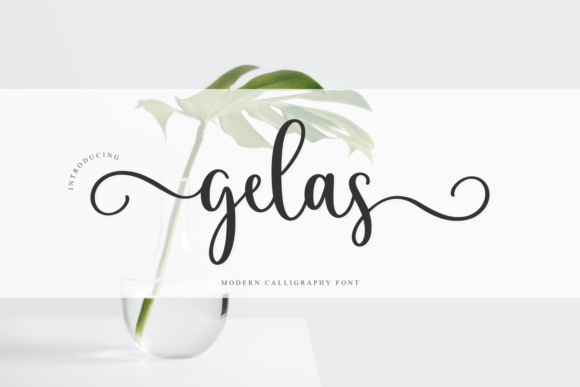
Enter the world of Gelas Font, a captivating script font family ready to transform your designs into works of art. Unleash the beauty of handwritten elegance with its intricate curly swash lines that add a touch of magic and charm to every letter. Whether you're crafting logos, designing labels, building brands, or creating invitations, Gelas Font is your perfect companion.
Experience the versatility of Gelas Font as it seamlessly adapts to your creative vision. Use it to enhance your websites, add a personal touch to your quotes, or let it shine in branding projects. Gelas Font's unique style ensures that your designs will stand out and captivate your audience.
With Gelas Font, you're not just downloading a font; you're inviting a new level of creativity into your design toolbox. Its ability to blend seamlessly with any project makes it a must-have for modern designers seeking a touch of sophistication and uniqueness.
Gelas Font is more than just a font; it's a key to unlocking your design potential. Its enchanting handwritten charm will add a layer of depth and emotion to your creations, leaving a lasting impression on your audience. Elevate your designs to new heights with Gelas Font and embark on a journey of creativity that knows no bounds.